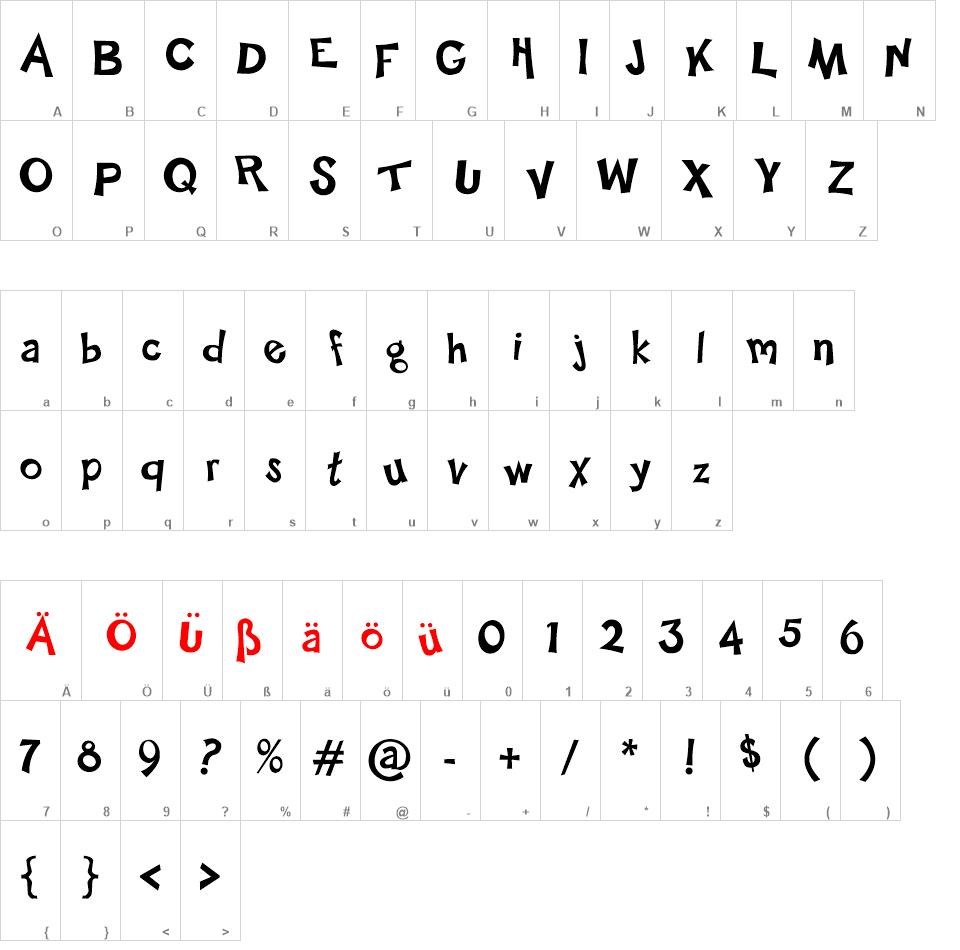
Happy Sans
Wanted a font with a bit of whimsy without looking spastic. Derived from my other font Happy Serif to have a cleaner look.
Spaced close - kerned tight with occasional overlap.